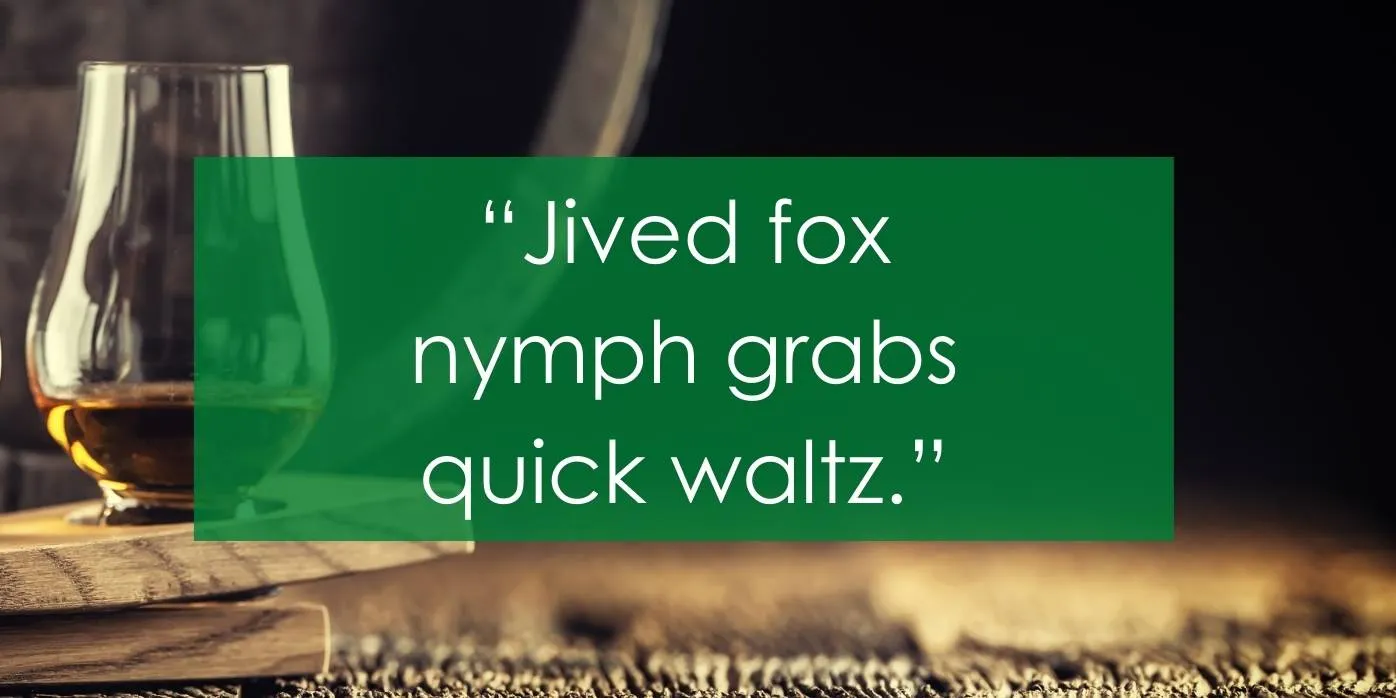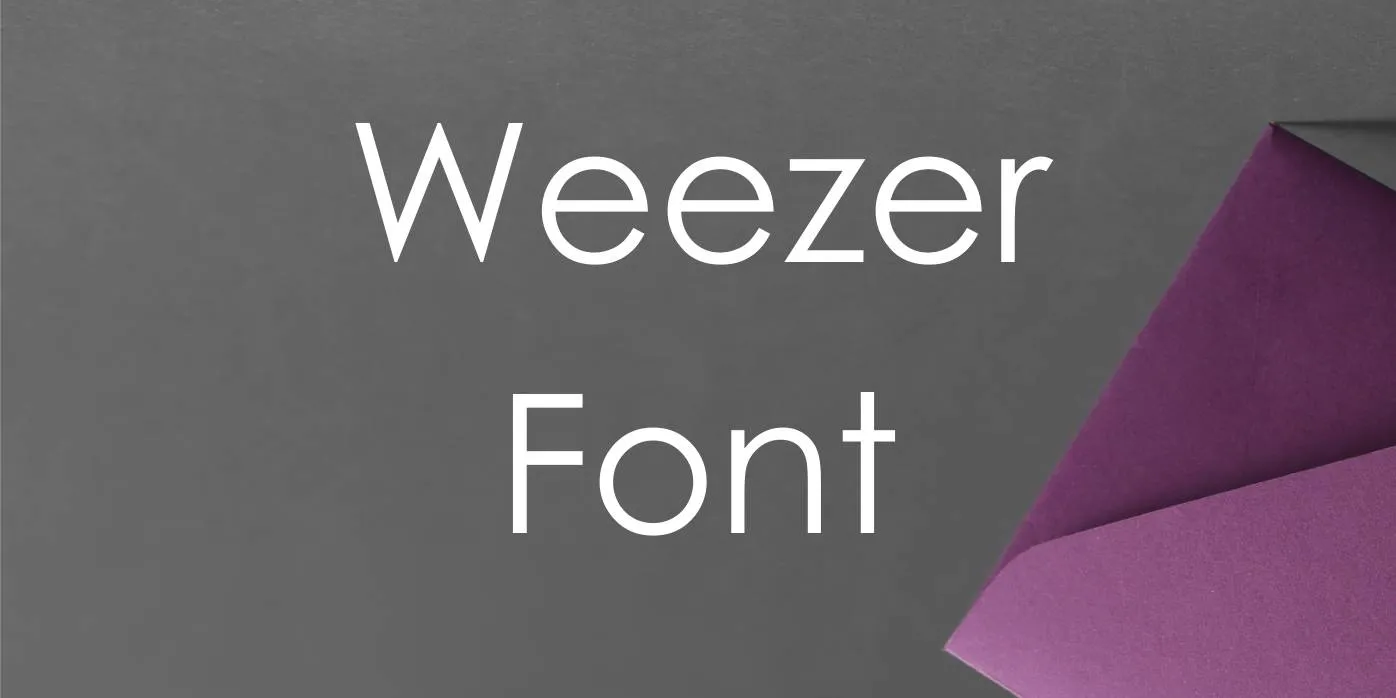
Weezer Font
Today, we present a very famous and modern typeface that is known by the name Weezer Font. It belongs to the Sans-Serif typeface. This typeface was designed by Karl Koch. Weezer is an American rock band that was formed in 1992.
The band members are Rivers Cuomo and Scott Shriner. The name of the band was inspired by the character from the popular TV show “Happy Days”. This Font family includes 6 different styles Regular, Bold, Italic, Bold Italic, Light, and Light Italic. You can use this amazing font for various purposes.
This attractive font family has different powerful Glyphs equal to 200 and also includes more than 220 special and unique characters. It is best for Adobe Photoshop, and Adobe Illustrator. You can also use its similar FF Mark Font. The very famous characters of this typeface are Uppercase, lowercase, and many others.
This stylish typeface supports many languages including French, Spanish, German, and English. You can also use this cute font for different graphics designs with the help of its generator tool.